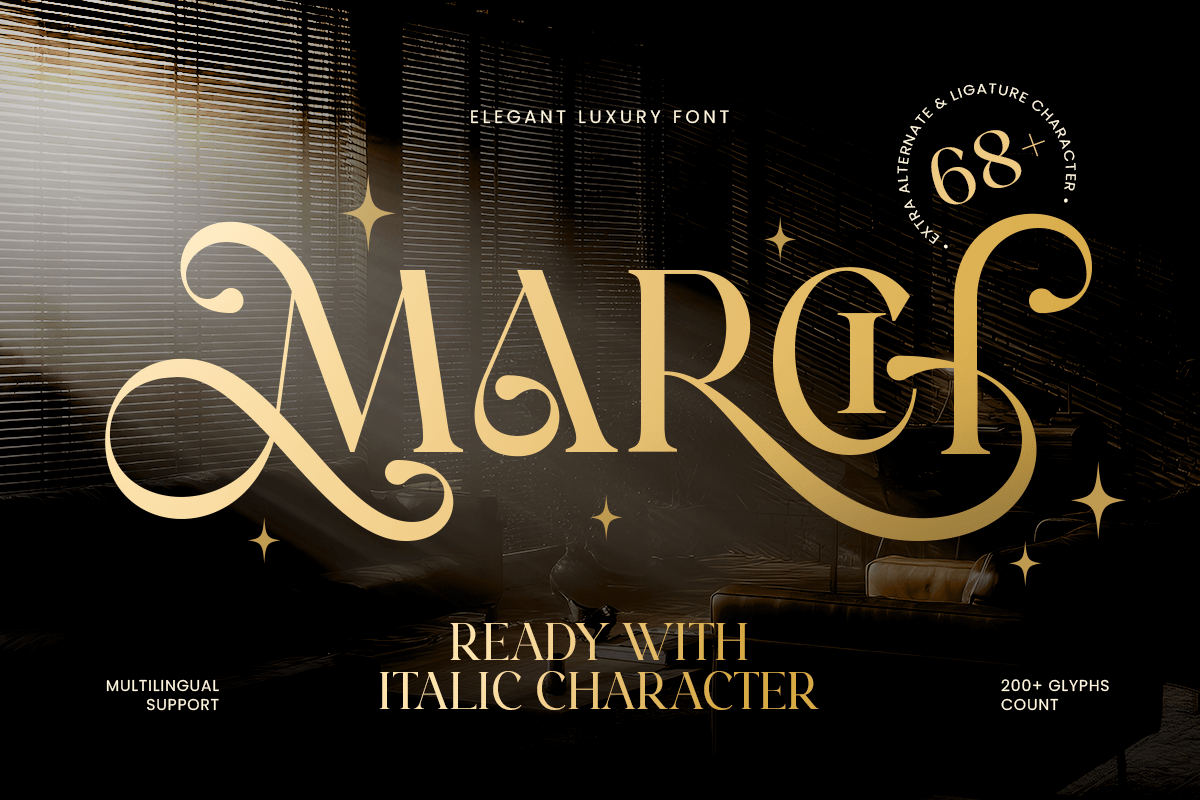
March
-Elegant Luxury Font
March - Elegant Luxury Font
MARCH is an elegant luxury font designed to bring sophistication, beauty, and premium character to your creative projects. With graceful letterforms, refined details, and a timeless aesthetic, this typeface is perfect for luxury branding, elegant logos, fashion editorials, premium packaging, and upscale visual identities.
Crafted for designers who appreciate subtle elegance and modern refinement, MARCH combines classic luxury inspiration with contemporary typography. Its polished structure creates a sophisticated presence that enhances brand identities, invitations, magazine titles, and lifestyle designs.
Whether used for fashion labels, beauty products, boutique branding, wedding stationery, or premium marketing materials, MARCH delivers a graceful and memorable look across both print and digital applications.
MARCH – Elegant Luxury Font Features
• Elegant luxury style with refined visual character
• Perfect for branding, logos, editorials, and premium packaging
• Included 2 style inside: regular and italic version
• Sophisticated letterforms with timeless design appeal
• Ideal for fashion, beauty, wedding, lifestyle, and boutique industries
• OpenType features for enhanced typographic styling